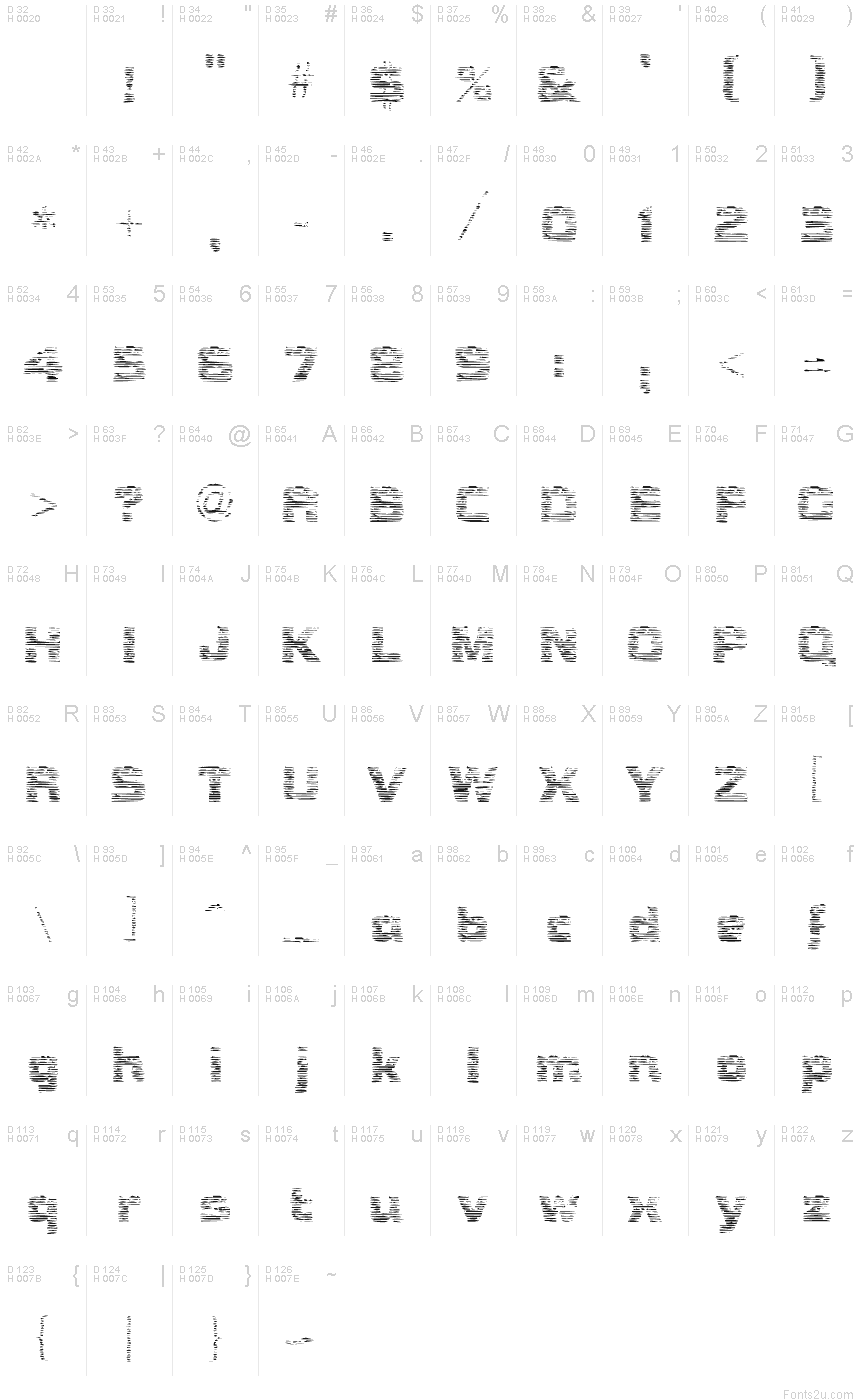
Bois Regular
Bois Regular font by La Kikita is a free eroded display font from the LK Bois family. Its letters look scraped by wind and carved with dry, horizontal gouges, giving every word a rough woodcut pulse that stays bold even at a glance. The striped erosion creates a flicker of movement, so headlines feel weathered, loud, and unmistakably handmade rather than merely distressed.
Using Bois Regular works beautifully for gig posters, album art, zines, indie film titles, streetwear graphics, rugged packaging, and festival flyers. This free font has enough texture to carry a headline on its own; pair it with a sans like Inter and give it room at sizes.